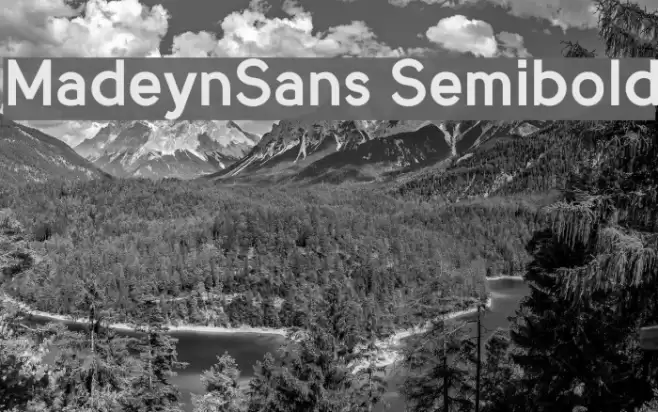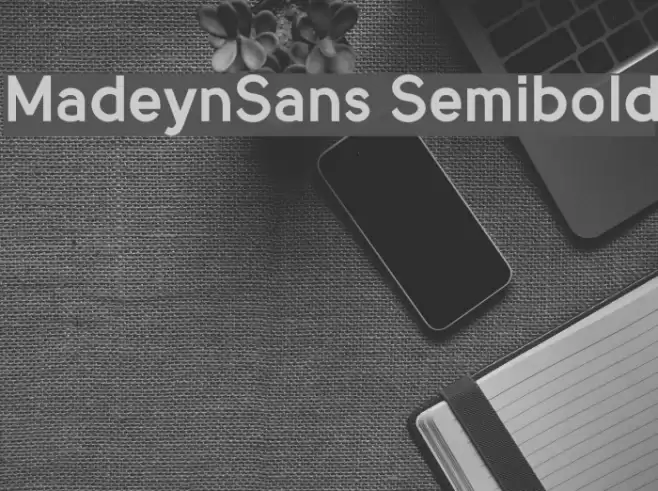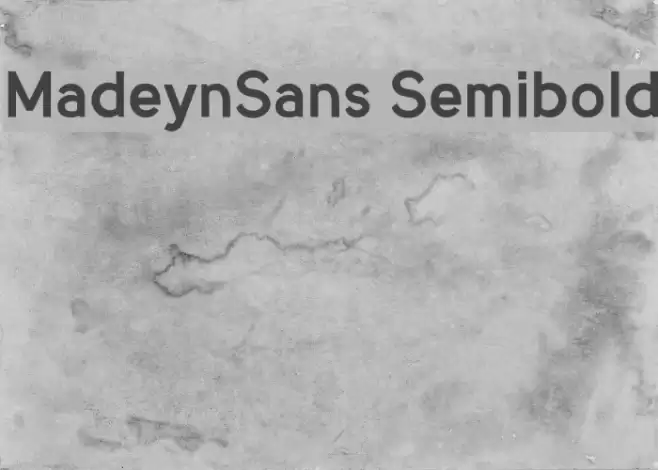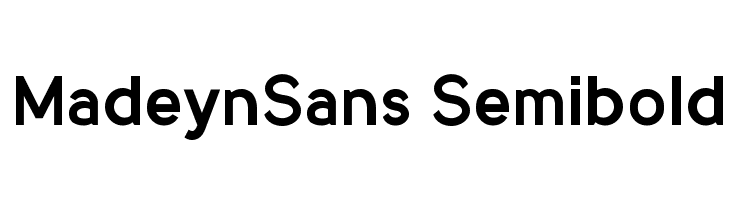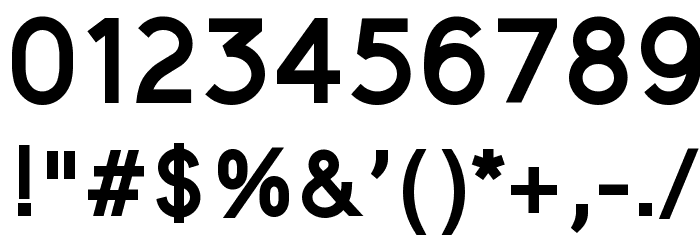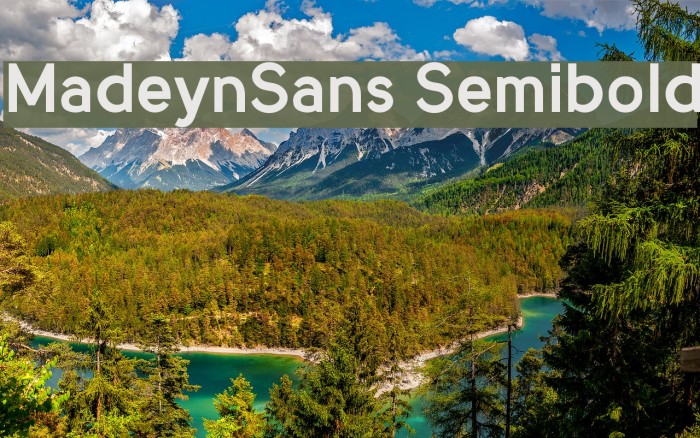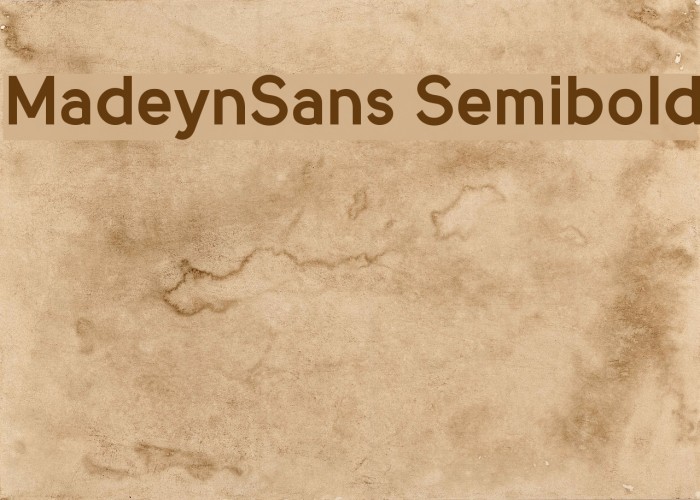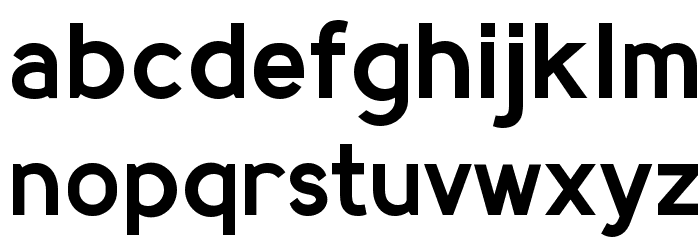
MadeynSans Semibold Font
MadeynSans Semibold Description
This typeface features a clean and modern sans-serif design, characterized by its geometric shapes and balanced proportions. The letters are crafted with precision, offering a uniform appearance that enhances readability. The uppercase and lowercase letters are well-defined, with consistent stroke widths that contribute to a harmonious look. The numerals are clear and distinct, making them suitable for various applications. Special characters are included, maintaining the same design ethos, ensuring versatility across different contexts. The overall aesthetic is sleek and professional, making it ideal for contemporary design projects.
A modern, geometric sans-serif typeface with balanced proportions and clean lines from Uncategorized fonts.
- Proposed Projects: Ideal for branding, corporate materials, web design, and editorial layouts.